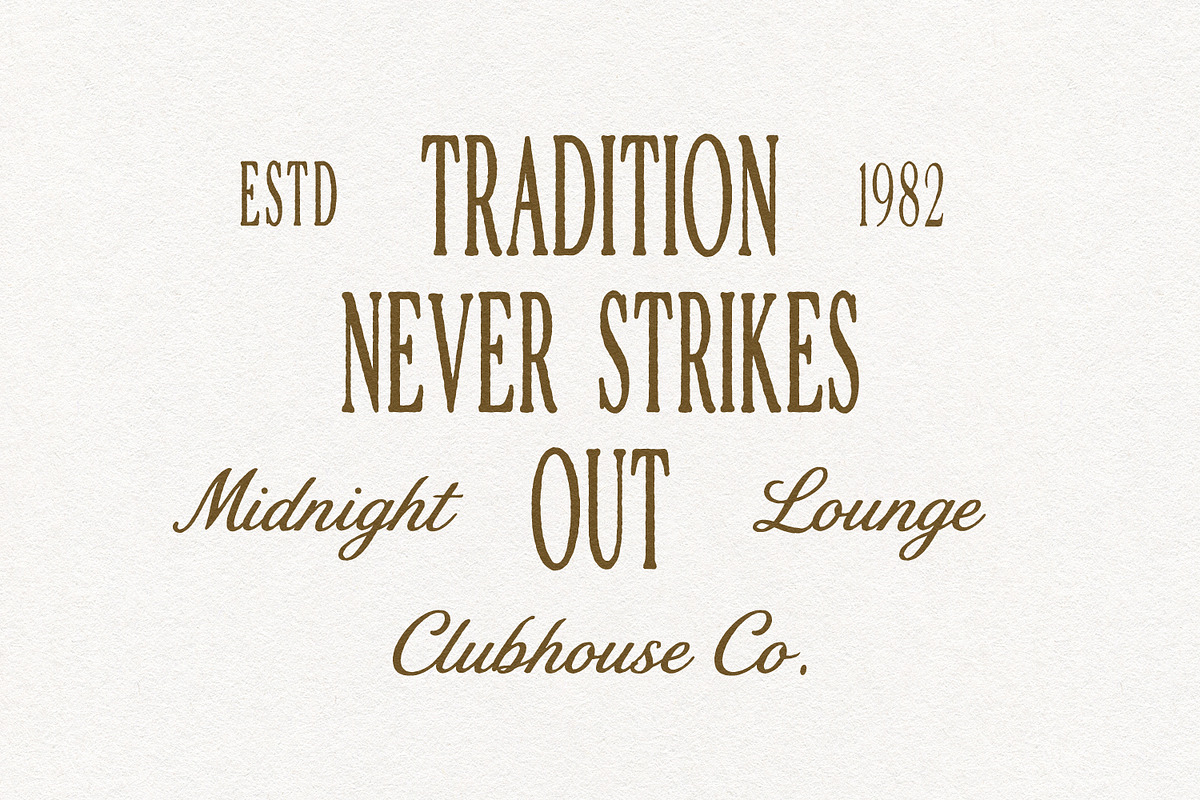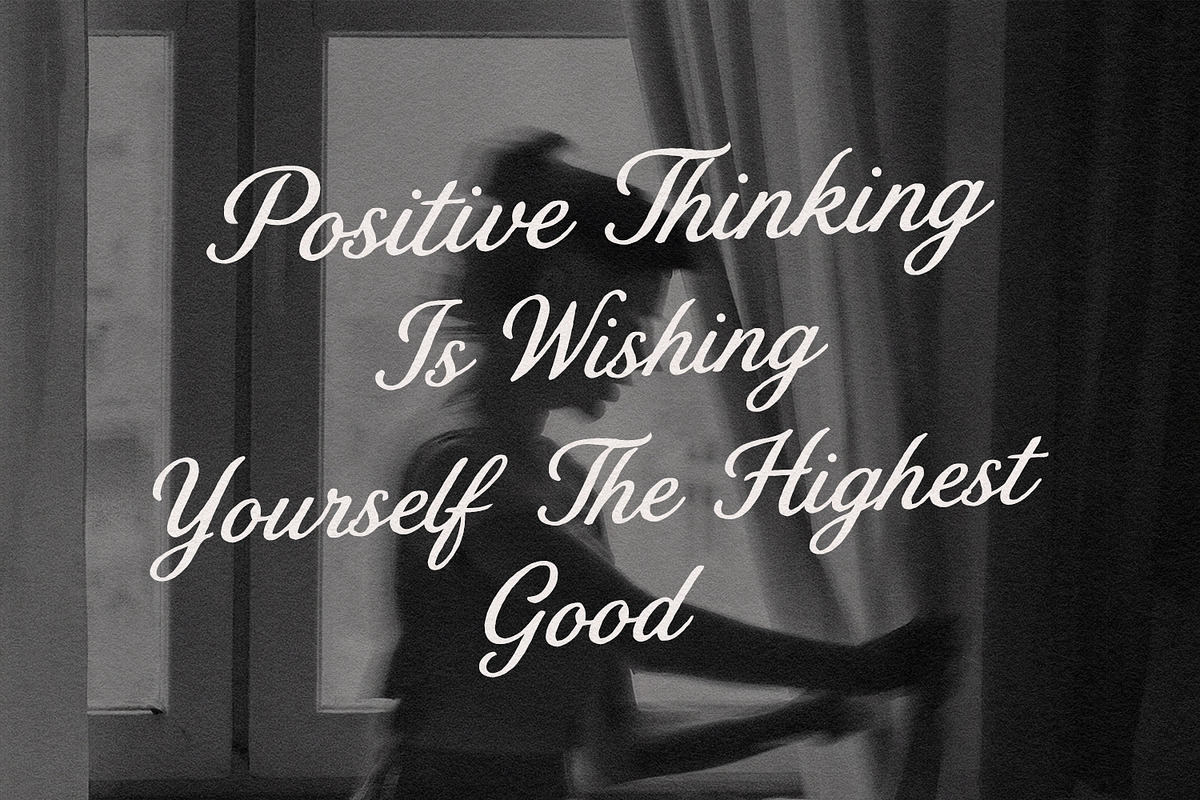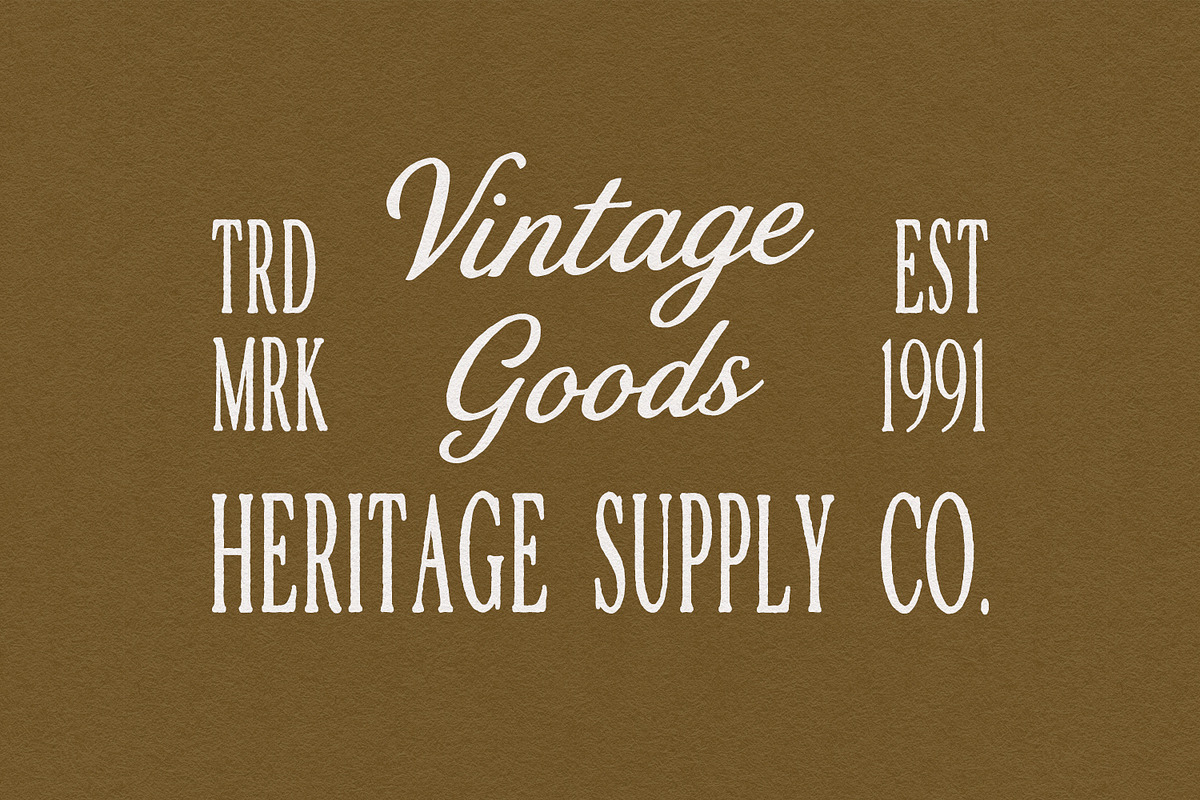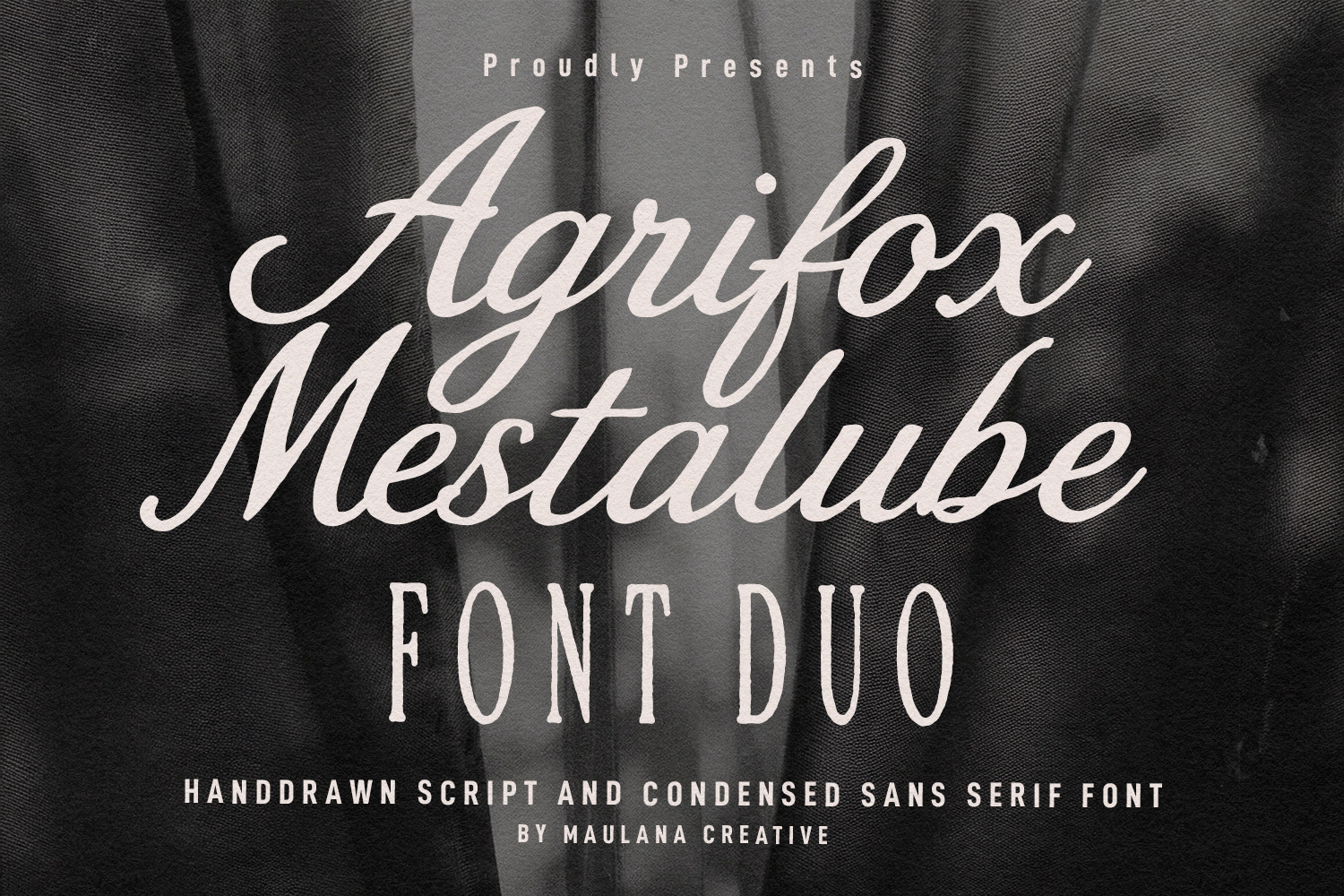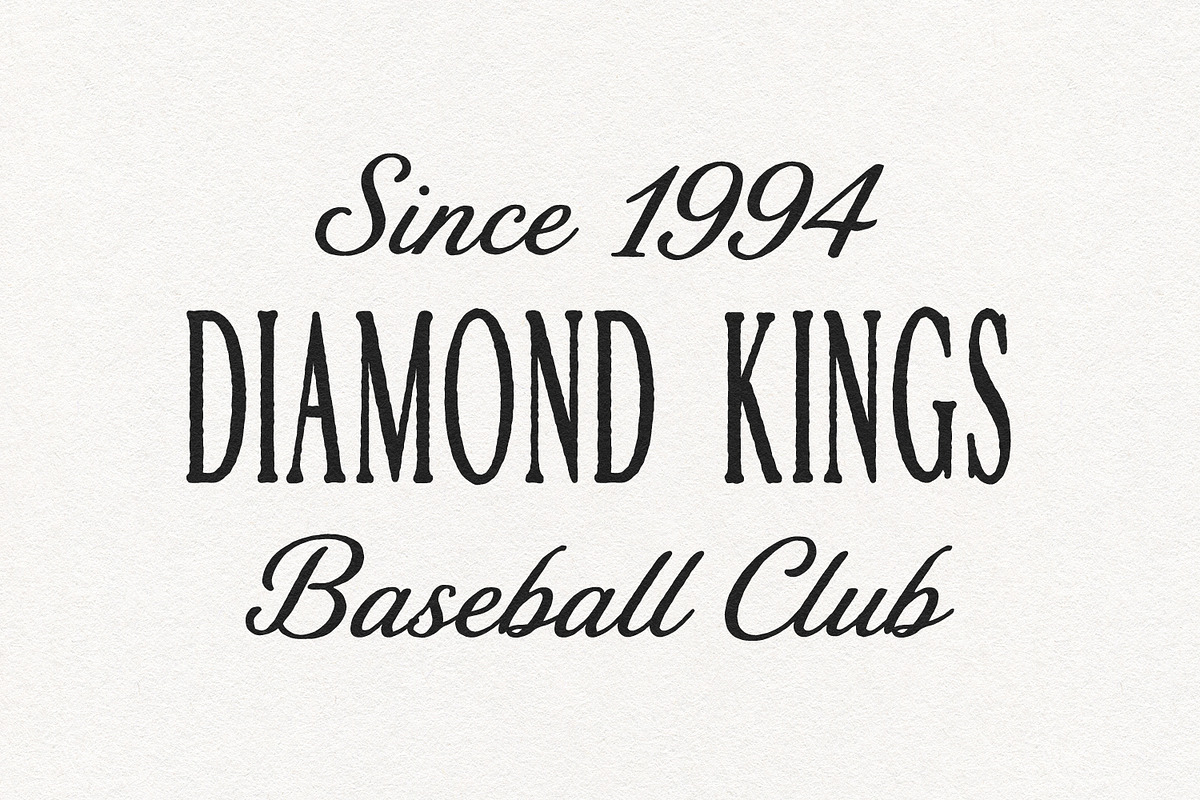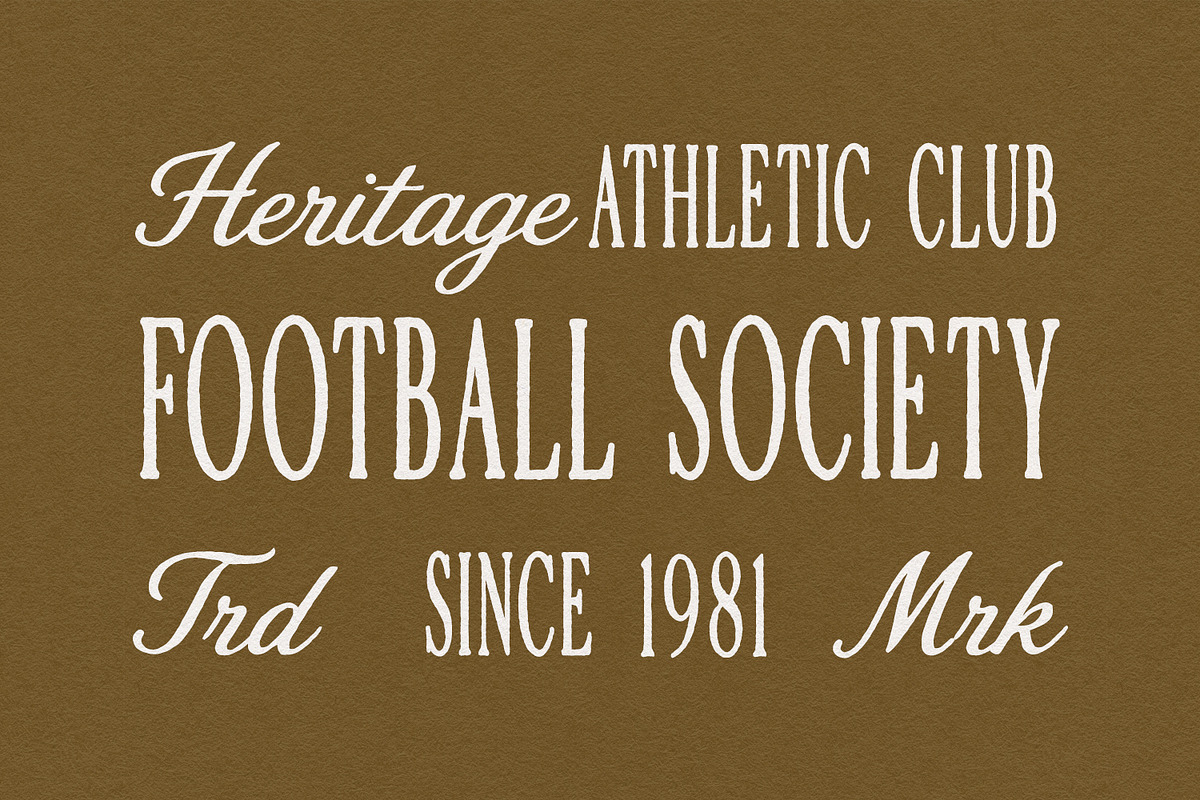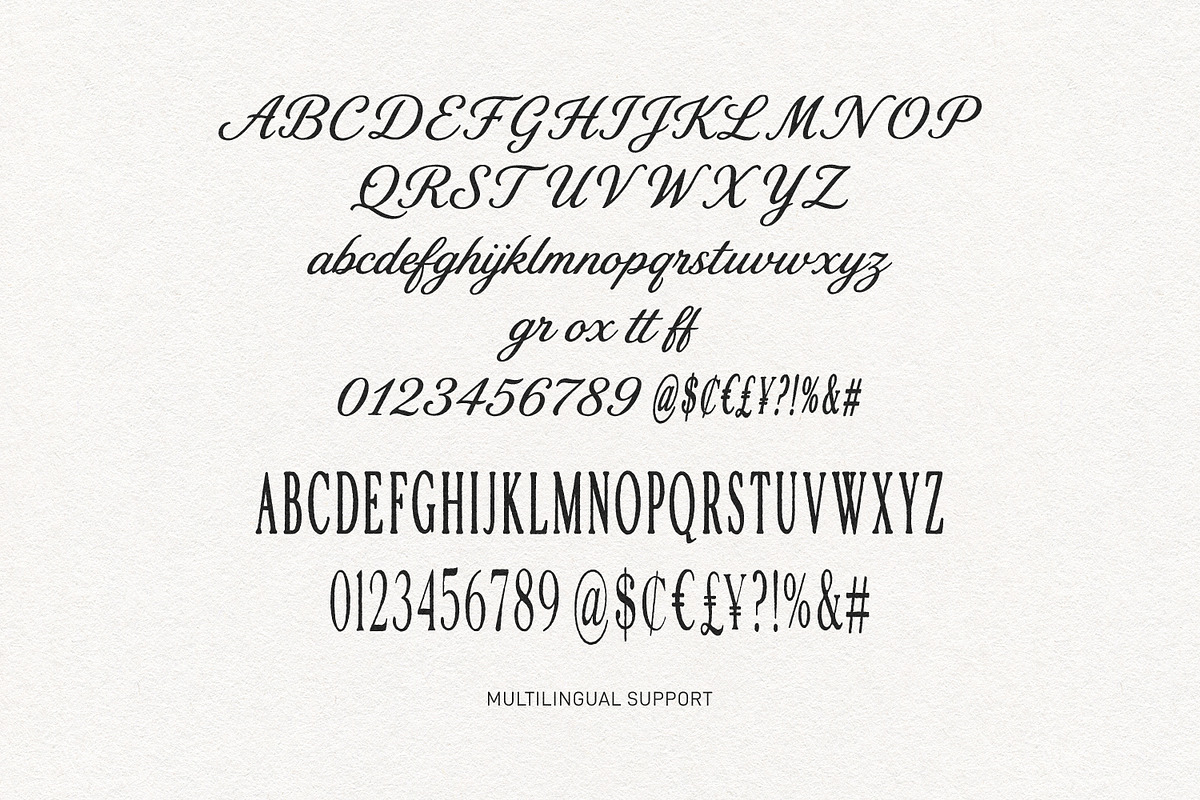
Agrifox Mestalube Font Duo
Agrifox Mestalube is a classic font duo that combines a fluid handdrawn script with a bold, condensed sans-serif typeface. Designed to capture a timeless aesthetic, this combination offers seamless harmony for projects requiring both elegance and structural strength. The flowing cursive strokes complement the tall, clean lines of the display font, creating an instant contrast that elevates visual hierarchy in any creative composition.
This versatile typographic pair is ideal for designing striking brand identities, vintage logos, product packaging, signage, labels, and event invitations. Equipped with full uppercase, lowercase, numerals, punctuation, and multilingual support, Agrifox Mestalube provides all the necessary elements to build cohesive layouts, athletic badges, and classic editorial covers with effortless typography.